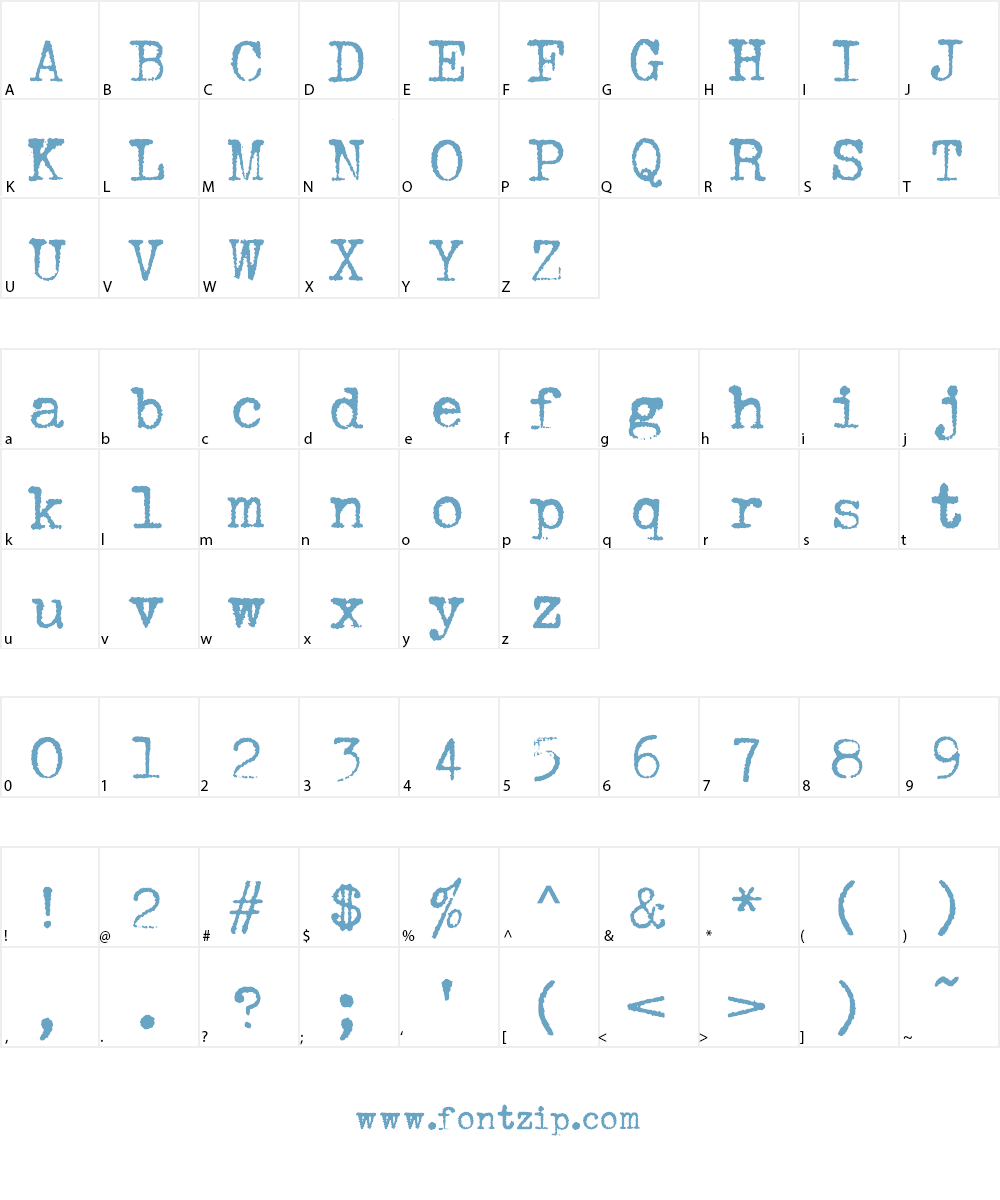
Here is some info and pics of the actual machine this font was made of: http://www.sberatel.com/diskuse/sberatel/hermes-baby-udrzba-opravy_post_-349683